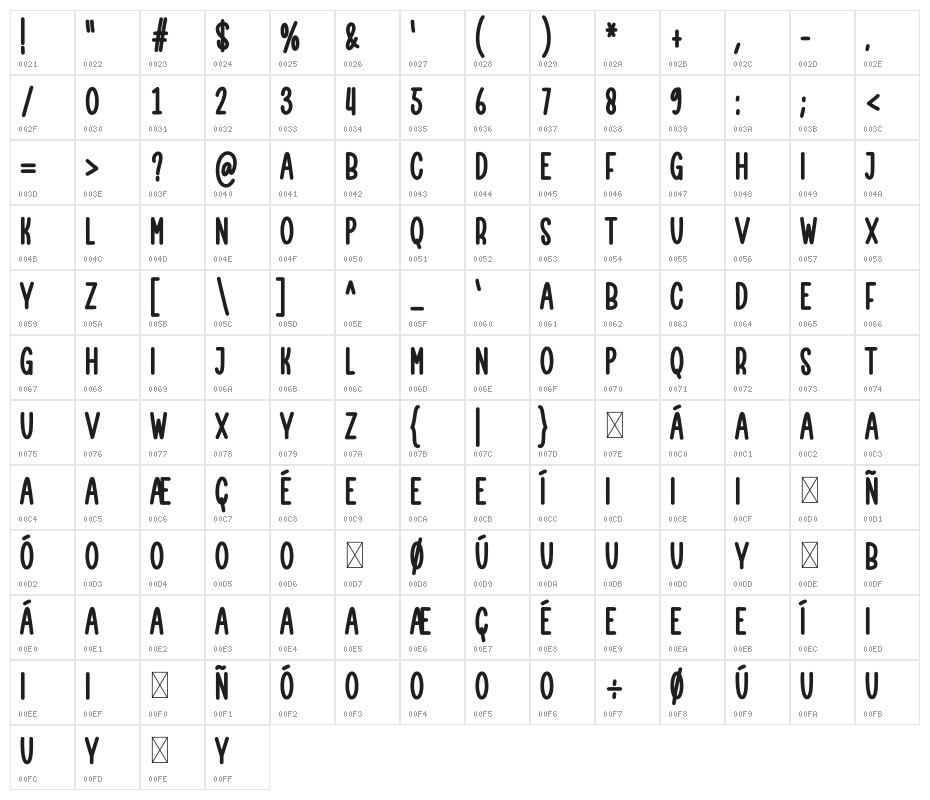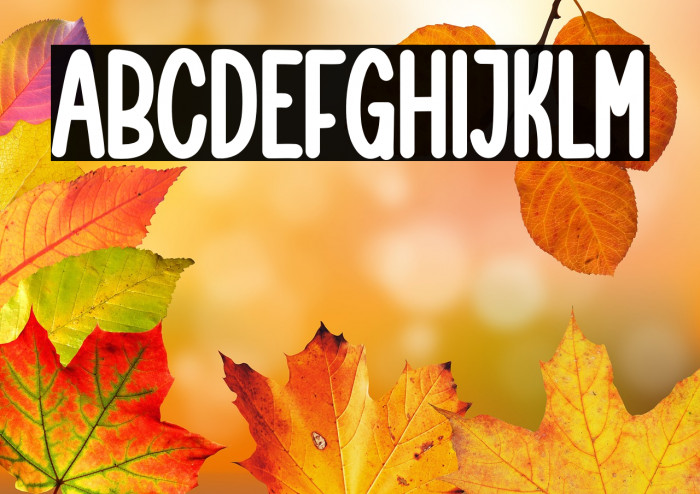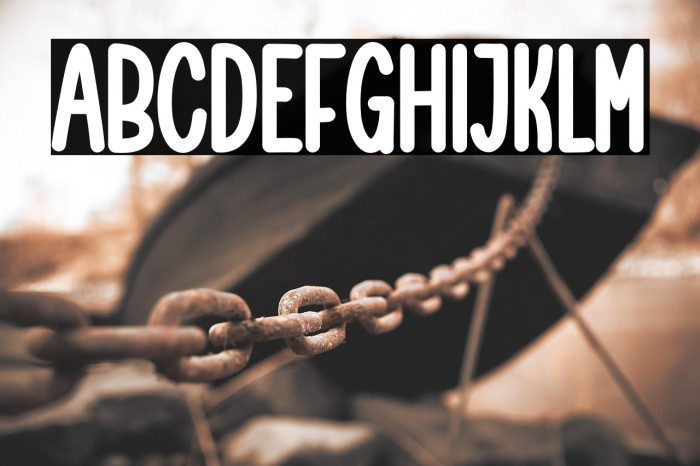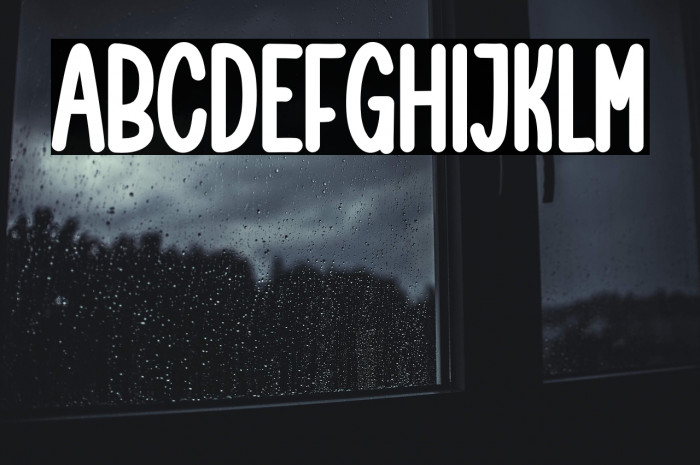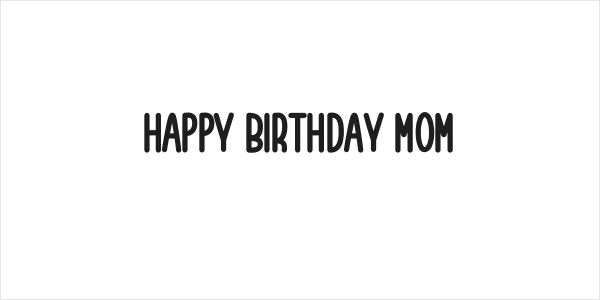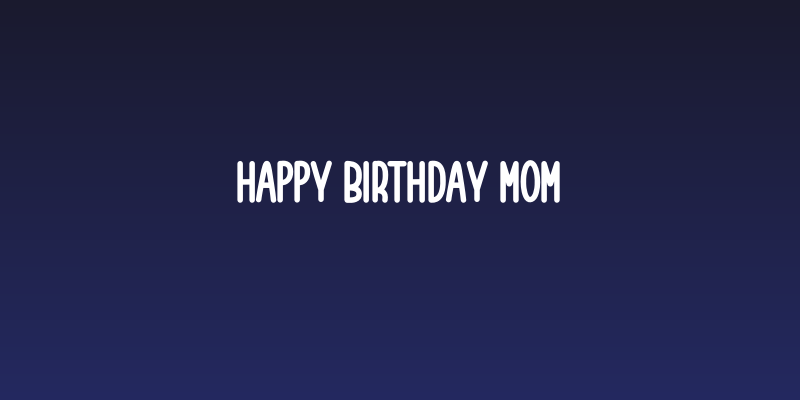
Happy Birthday Mom Font
Happy Birthday Mom Description
A playful, rounded handwritten font with a casual and friendly appearance.
Overall StyleCasual and friendly
Use CaseGreeting cards, invitations
Proposed ProjectsGreeting cards, invitations, playful branding.